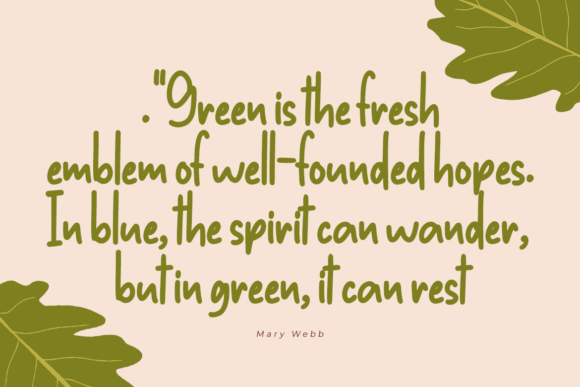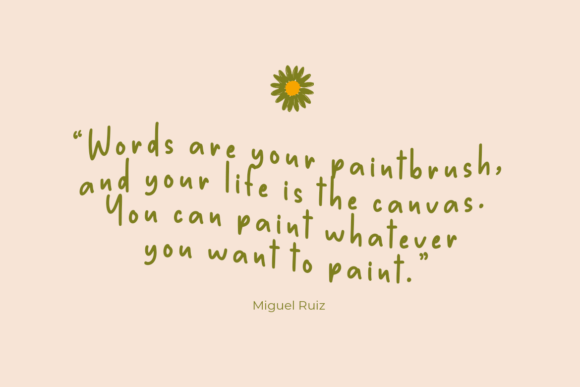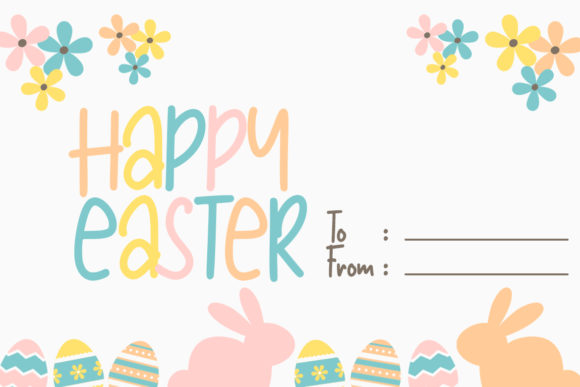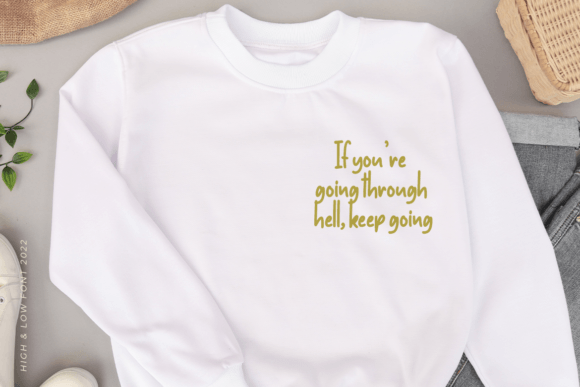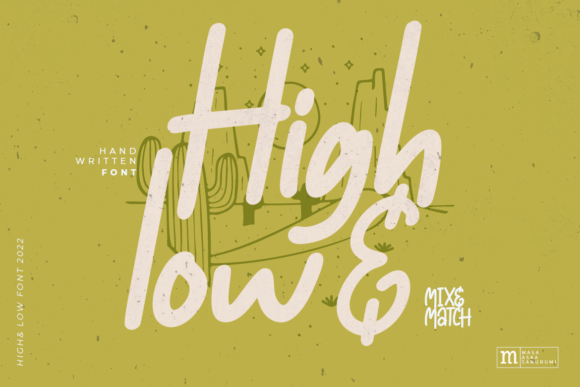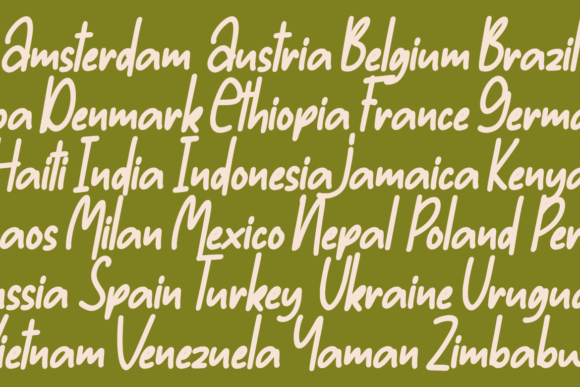
The Designer’s Delight: High Low Font
The High Low font is an organic and gorgeous handwritten font that embodies simplicity and style. Its unique charm makes it perfect for a variety of creative projects, from Instagram posts to DIY crafts. In this article, we’ll dive into the world of High Low and explore its features, uses, and alternatives.
- ✨ The High Low font has a beautiful, hand-crafted feel that’s perfect for adding a personal touch to any project.
- ✅ It’s incredibly versatile and works well for both digital and print projects.
- 💫 The font comes with a range of OpenType features, including glyphs and stylistic alternates, which allow for endless creative possibilities.
While the High Low font is amazing, there are a few things to keep in mind: 🤔
- ⚠️ Some of the more intricate glyphs and swashes may not display properly on certain devices or browsers, so it’s essential to test the font before finalizing your project.
- ⚠️ The font may not be suitable for very small text sizes, as some of the details may get lost.
The Story Behind High Low
The High Low font was designed by a talented type designer who wanted to create a font that embodied the perfect balance of simplicity and style. Inspired by the world of handwriting and calligraphy, the designer crafted a font that’s both elegant and approachable. 💫
| Font Name | High Low Font |
| Author | Masa Aska Sanurumi |
Q: What is the High Low font best used for?
A: The High Low font is perfect for a variety of creative projects, including Instagram posts, DIY crafts, wedding designs, and more.
Q: Is the High Low font available in different weights or styles?
A: Yes, the High Low font comes in a range of weights and styles, allowing you to experiment with different looks and feels.